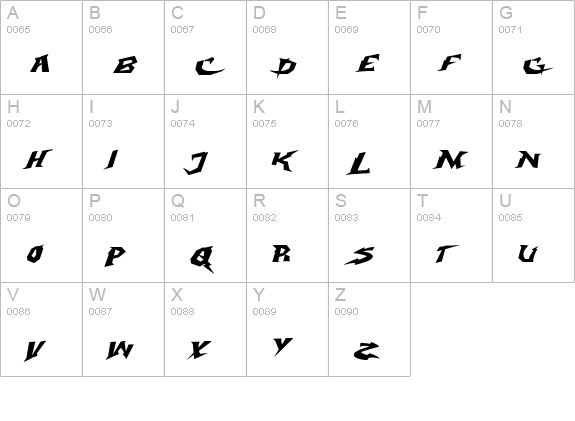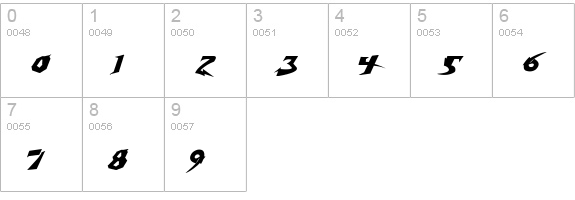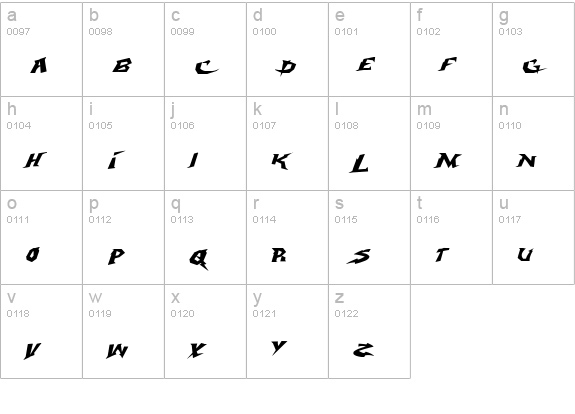
Electrox Font Details
Electrox is a modern and stylish font that exudes a futuristic and sophisticated vibe. With its sleek lines and sharp edges, this typeface is perfect for projects that require a contemporary and cutting-edge look. The bold and dynamic design of Electrox makes it ideal for branding, logos, headlines, and more. What sets Electrox apart is not only its striking appearance but also the fact that it is available for free download at FontsMarket.com. This means that you can use this high-quality font in your projects without any cost, making it a truly valuable resource for designers and creatives. Whether you're working on a website, poster, or packaging design, Electrox will make your text stand out with its unique and eye-catching style. Download Electrox today and elevate your designs with this exceptional font.